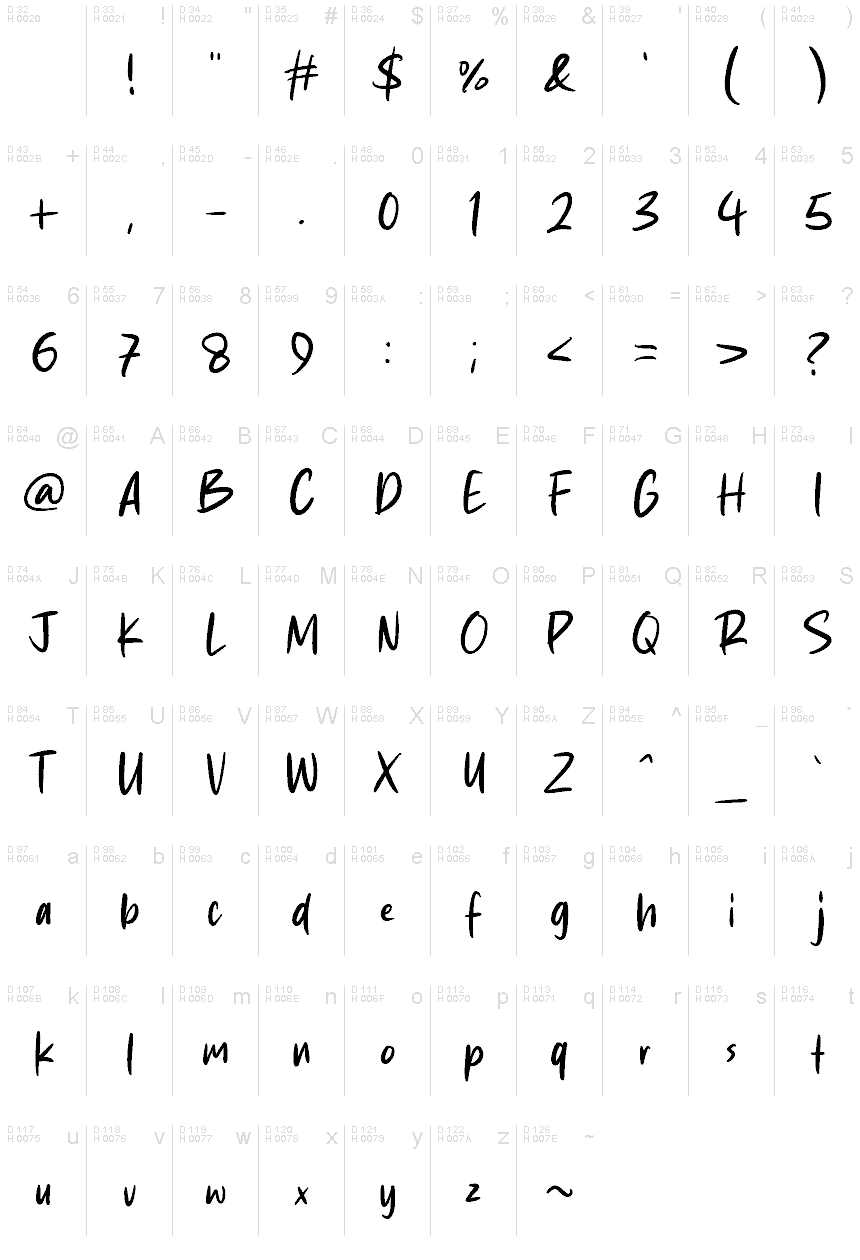
Last Beast
Last Beast font by MJType is an energetic brush typeface with an expressive handwritten feel. Its modern design and casual tone make it perfect for contemporary applications in branding and creative designs, adding character and originality to your visual projects.
A suitable free brush font for posters, advertisements, logos, quotes, merchandise, packaging covers, T-shirt prints, social media visuals, YouTube thumbnails, TikTok art videos, music album covers.